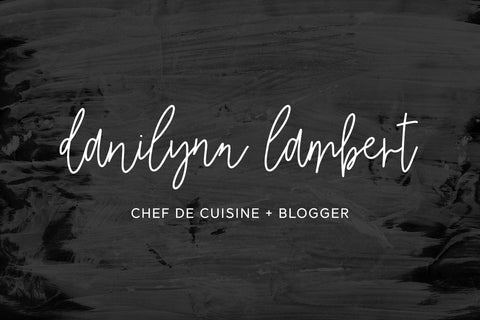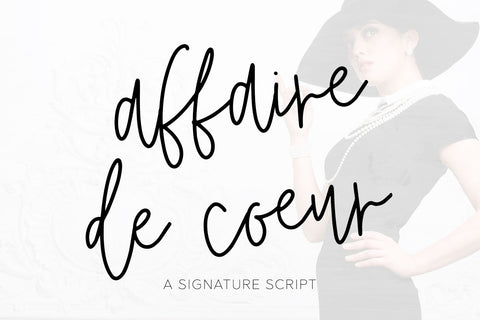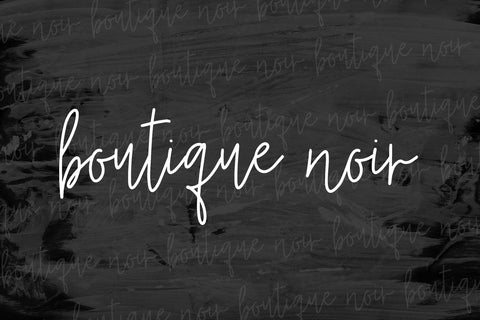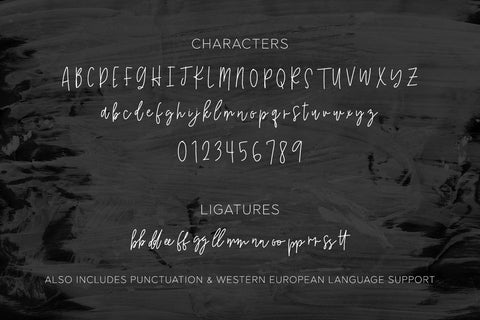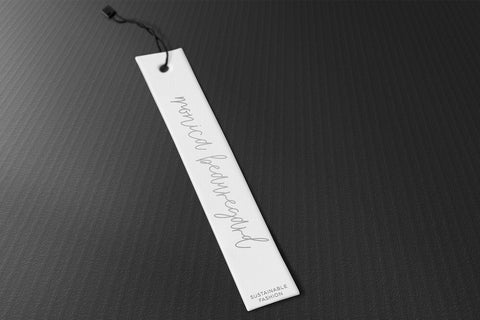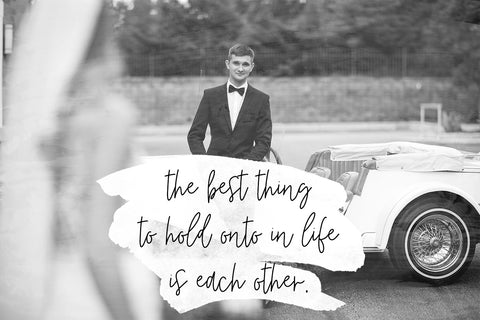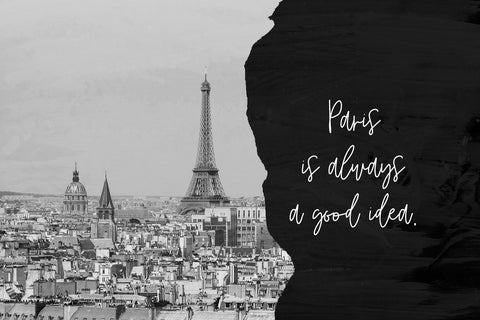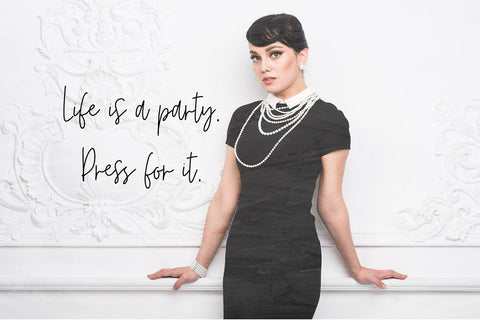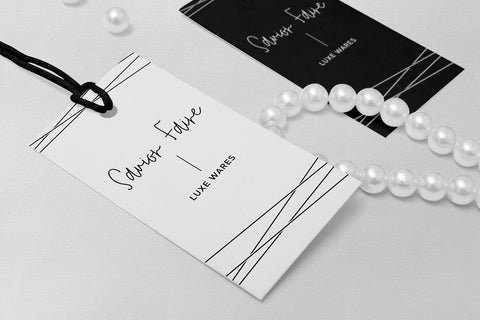
Affaire de Coeur Script Font
Affaire de Coeur is a signature style script. Affaire’s messy-chic look makes it a fantastic fit for luxe brands, fashion brands, bloggers, & more!
Affaire de Coeur is best for:
- logos + branding
- clean print design, like magazines + flyers
- header elements that need a chic touch
- quote graphics for social media
- any project that needs a handwritten font
Affaire de Coeur includes:
- full upper + lowercase characters
- numbers + punctuation
- Western European Language Support
- common double-letter ligatures bb, dd, ee, ff, gg, ll, mm, nn, oo, pp, rr, ss, tt